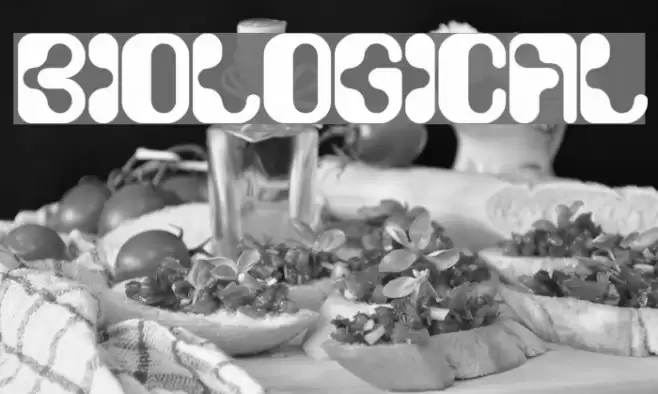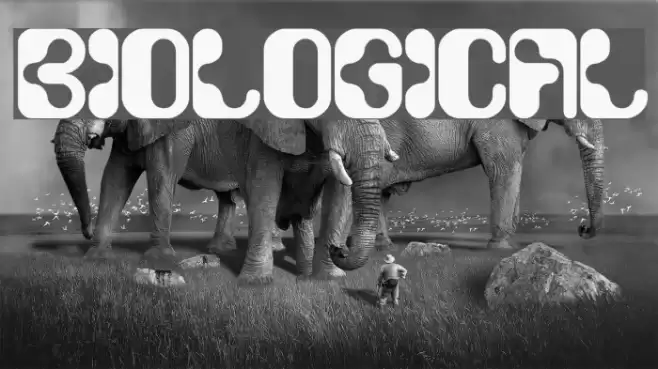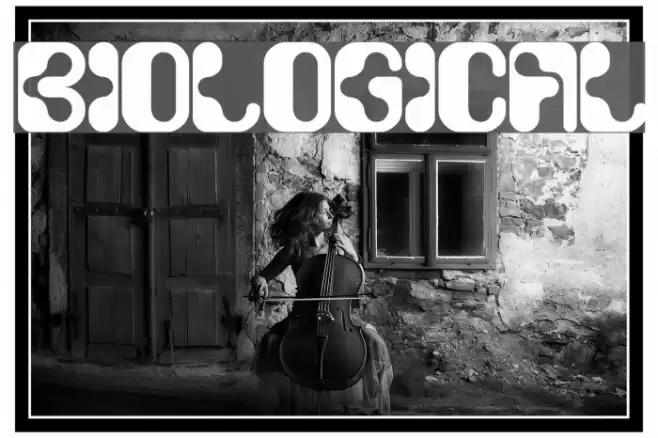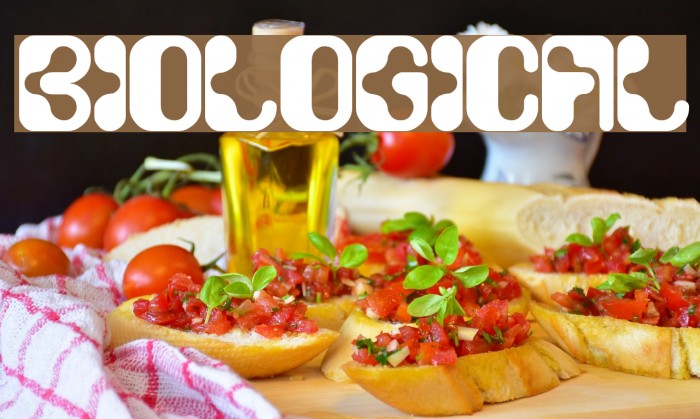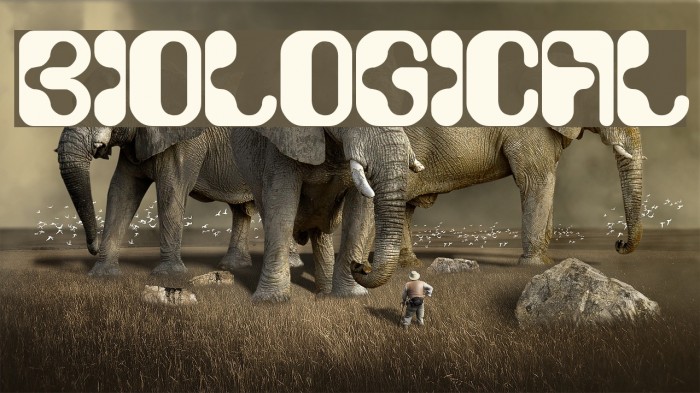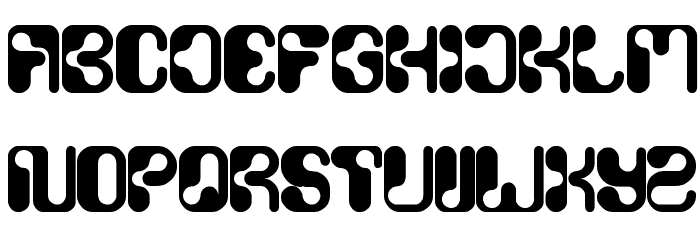
biological Font
biological Description
This font features a bold and modern design with a unique, organic feel. The characters are composed of thick, rounded strokes that create a sense of fluidity and movement. The design incorporates negative space creatively, giving each letter a distinctive appearance. The overall look is both futuristic and playful, making it suitable for eye-catching designs. The font's boldness ensures high visibility, while the rounded edges soften its impact, creating a balanced aesthetic.
A bold, modern font with rounded, organic shapes and creative use of negative space from Uncategorized fonts.
- Proposed Projects: Ideal for branding, posters, and digital media where a modern and playful touch is desired.